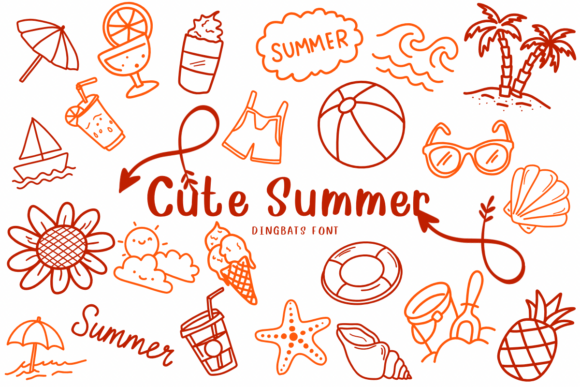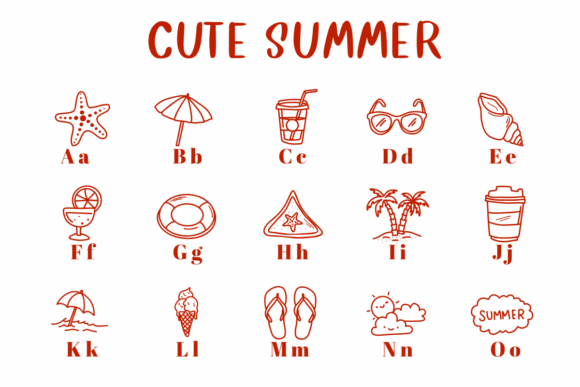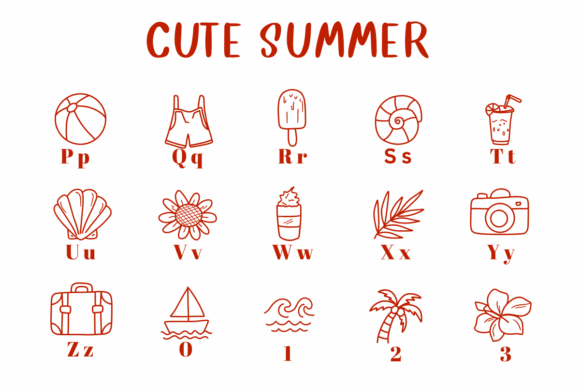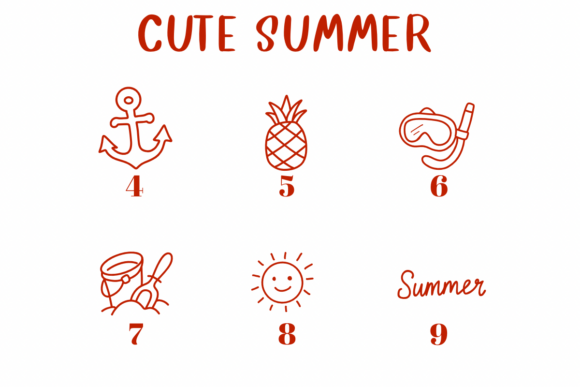
Cute Summer Font
About the Cute Summer Font
Add a touch of class to your work with the Cute Summer Font, a truly exceptional typeface. Cute Summer is a dingbats font with a relaxed theme. This font can enhance your creative projects such as wedding invitations, DIY, crafts, decorations, logos, and many other creative ideas.
Cute Summer’s playful, hand-drawn aesthetic makes it ideal for projects requiring a lighthearted and approachable feel. It excels in short text applications like logos, social media graphics, and headings on invitations or packaging. However, its informal nature makes it unsuitable for body text or applications demanding high readability, such as lengthy website copy or UI elements.
Pairing Cute Summer with a clean sans-serif like Open Sans for body text provides a balanced contrast, grounding the whimsical nature of the dingbats. Alternatively, a classic serif like Garamond could add a touch of sophistication, creating a more refined overall feel. For a more playful outcome, consider pairing it with a rounded geometric sans-serif font.
The font’s overall personality is cheerful and informal, best suited to brands targeting a young, creative, or feminine demographic. Avoid using it where a professional or serious tone is required.